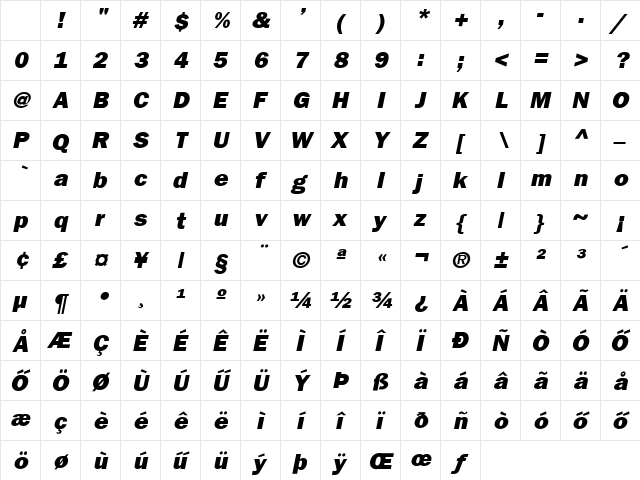
H_FrankfurtGothicHeavy takes a clean, functional approach - its unadorned letterforms prioritise legibility and work reliably across screen and print environments. The slanted form adds forward momentum and visual energy.
Font Pairing: Works well alongside a characterful serif or display font that can carry the expressive load while H_FrankfurtGothicHeavy handles the functional copy.
Pro Tip: Use H_FrankfurtGothicHeavy for UI labels, navigation, and short-form body copy where clean legibility is the priority.